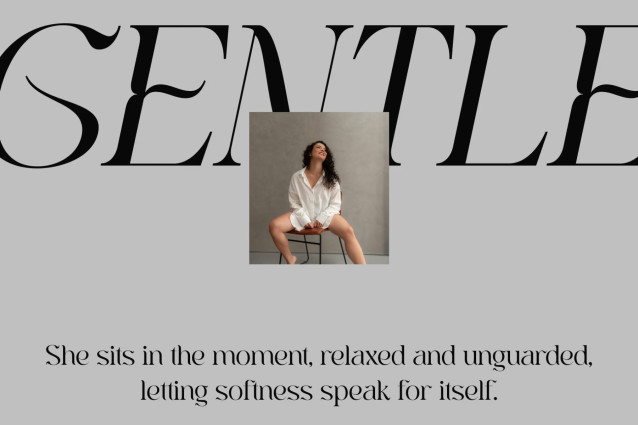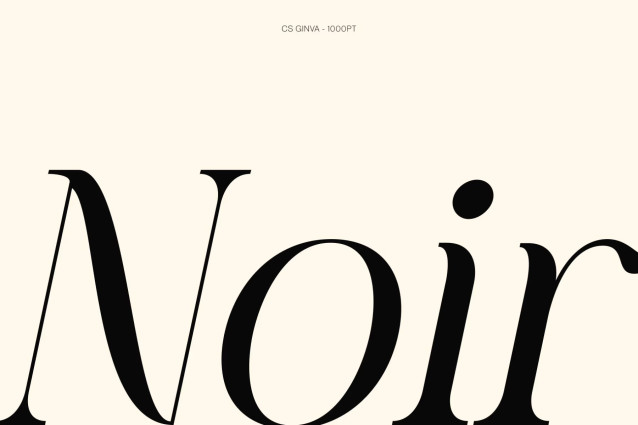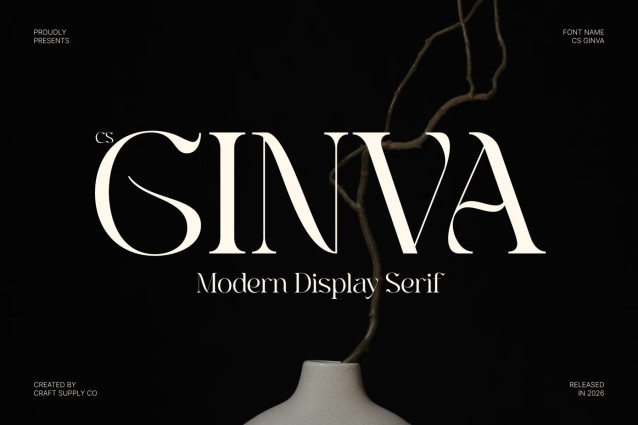
CS Ginva – Stylish Serif Font
CS Ginva – Chic Display Serif with Modern Elegance
Chic Display Serif with Refined Modern Style
This is a stylish and modern display serif font designed to radiate elegance through simplicity and precision. With its chic personality and carefully balanced proportions, this typeface delivers a sophisticated visual tone that feels both contemporary and timeless. It is crafted for designers who want typography that feels luxurious, clean, and effortlessly refined.
Minimal Curves with High Contrast Elegance
The font features minimal yet expressive curves combined with a strong high-contrast structure, creating a striking balance between delicacy and impact. These refined details give this font a graceful rhythm, allowing each letterform to feel elegant, polished, and visually engaging across all applications.
Modern Sophistication with Lifestyle Appeal
This font embodies a modern aesthetic that fits seamlessly into fashion-forward and lifestyle-oriented design. Its clean structure and chic character make it ideal for creating premium visual identities that feel fresh, stylish, and aspirational. The result is a typeface that enhances any composition with subtle luxury.